Arial Alternatives Font
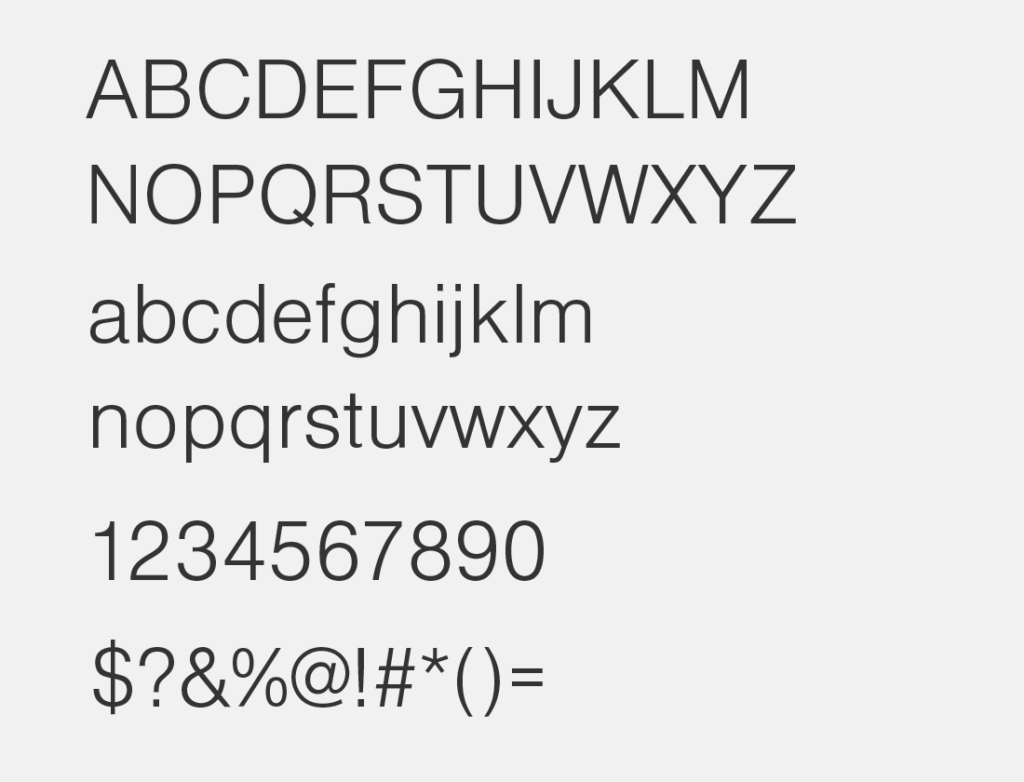
Arial, sometimes marketed or displayed in software as Arial MT, is a sans-serif typeface and set of computer fonts in the neo-grotesque style. Fonts from the Arial family are packaged with all versions of Microsoft Windows from Windows 3.1 onwards, some other Microsoft software applications, Apple’s macOS and many PostScript 3 computer printers.
It was created to be metrically identical to the popular typeface Helvetica, with all character widths identical, so that a document designed in Helvetica could be displayed and printed correctly without having to pay for a Helvetica license.
The Arial typeface comprises many styles: Regular, Italic, Medium, Medium Italic, Bold, Bold Italic, Black, Black Italic, Extra Bold, Extra Bold Italic, Light, Light Italic, Narrow, Narrow Italic, Narrow Bold, Narrow Bold Italic, Condensed, Light Condensed, Bold Condensed, and Extra Bold Condensed.
Arial Light – [Nimbus Sans Light]
Arial Regular – [Orion Esperanto Normala]
Arial Medium – [Pragmatica Medium]
Arial Bold – [Orion Esperanto Dika]
Arial Extra Bold – [Aileron Black]
Arial Black – [Nimbus Sans Becker]
Arial Italic
Other Free Arial Similar Fonts
Helvetica Now
Helvetica® Now is a new chapter in the story of perhaps the best-known typeface of all time. Available in three optical sizes—Micro, Text, and Display—every character in Helvetica Now has been redrawn and refit; with a variety of useful alternates added. It has everything we love about Helvetica and everything we need for typography today. This is not a revival. This is not a restoration.
This is a statement.
This is Helvetica Now: for everyone, everywhere, for everything.
Chalet Book
House Industries developed this special version of Chalet for the House book project. They optimized the characters for better readability at small sizes and made the entire typeface more compact. They also added small caps, small cap figures, fractions and some useful OpenType features.
San Francisco Display
San Francisco Display is a neo-grotesque sans-serif typeface made by Apple Inc. It was first released to developers on November 18, 2014. It is the first new typeface designed at Apple in nearly 20 years and has been inspired by Helvetica and DIN.
The San Francisco Display typeface has three main variants: SF for macOS, iOS, and iPadOS; SF Compact for watchOS; and SF Mono for the Terminal, Console, and Xcode applications. Several other variants exist for internal use by Apple.
San Francisco was first introduced in watchOS only. The next year at WWDC, Apple released the watchOS font as SF Compact and at the same time introduced SF UI (generally called SF) for OS X El Capitan and iOS 9. In macOS High Sierra and iOS 11, SF UI was succeeded by SF Pro.
Nimbus Sans
These are the most recent versions of the Nimbus family of fonts from URW++ released under the GPL.
They are fully metric compatible with Times, Helvetica and Courier and support the full WGL4 character set (and most of W1G, missing only the interrobang and some subscript and superscript symbols).
Helvetica Neue
This typeface, designed by Max Miedinger and other project members at the Haas’sche Schriftgiesserei, has become one of the most famous and popular typefaces in the world, thanks to the marketing strategy of Stempel and Linotype. It forms an integral part of many printers and operating systems. The original letterforms of Helvetica had to be modified for the Linotype system. Over the years, Helvetica was expanded to include many different weights, but these were not coordinated with each other.
In 1983, D. Stempel AG redesigned and digitized the “Neue Helvetica” typeface for Linotype and made it a self-contained font family. Today, this family consists of 51 different font weights.
Pragmatica
The typeface was designed at ParaType (ParaGraph) in 1989-2004 by Vladimir Yefimov and Olga Chaeva. A spin-off from Encyclopedia-4 type family of the Polygraphmash type design bureau (1987, Vladimir Yefimov and Isay Slutsker). Inspired by Helvetica (Neue Haas Grotesk) of Haas typefoundry, 1957 by Eduard Hoffman and Max Miedinger.
Based on the 19th century Grotesque designs, Helvetica brought a new level of mathematical accuracy to the sans serif category. Widely used for many applications, from magazines and books to advertising and headlines. Four basic styles of Pragmatica were developed in 1989 by Vladimir Yefimov. Eight additional styles were developed in 2003 by Olga Chaeva.
Aktiv Grotesk
Aktiv Grotesk was designed as an intentional alternative to the most ubiquitous typeface from the grotesque genre – a typeface which Bruno Maag, founder of Dalton Maag, openly despises as the ‘vanilla ice cream’ of a designer’s type library.
Updated in May 2013 with improved hinting and released under the Apache 2.0 license.